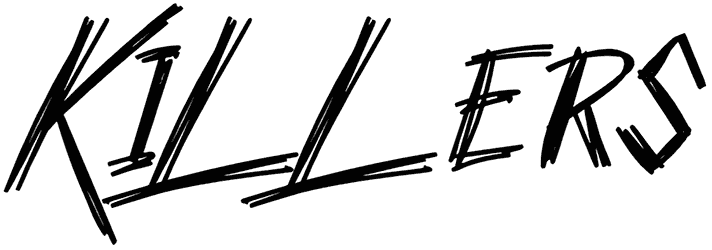
Killers Font
Looking for a horror font with a normal and simple texture? So take a look at Killers. This brush font is an irregular combination of lines that gives it a scary look with haste and fear senses. Since this scribble font does not include lowercase letters, you can use it for large-scale projects such as posters, advertisements, and banners.
Killers is a bold and cool-looking display font. Simple but with a strong visual effect, this font will instantly make your creation more appealing than any others!